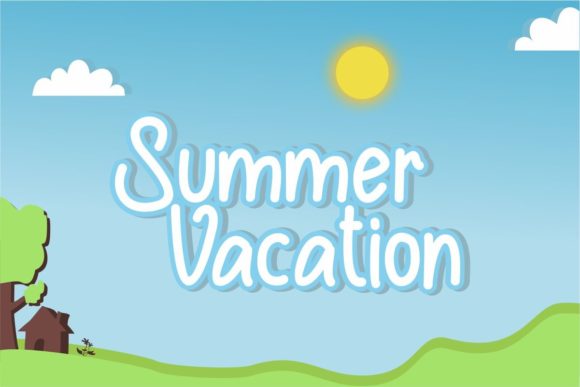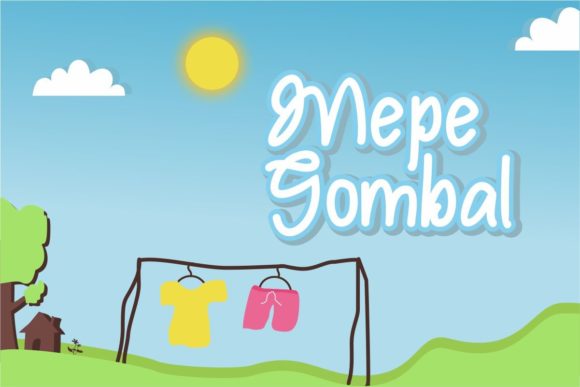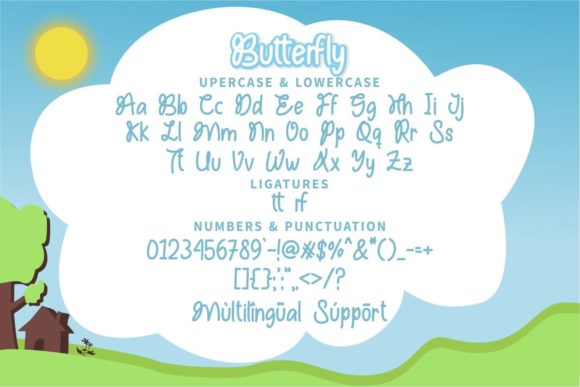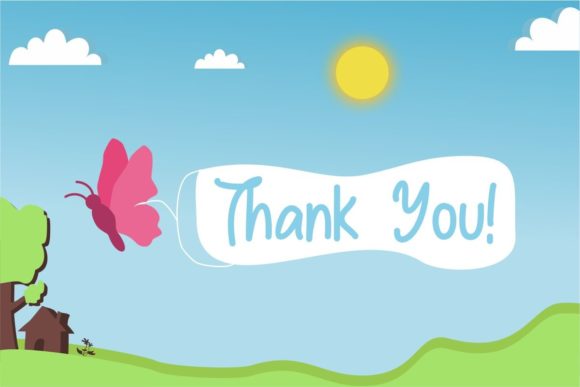
The Sweet Charm of Butterfly Font
There’s nothing quite like the thrill of discovering a new font that makes your designs leap to life. Remember that moment when you stumbled upon the perfect script font, and suddenly your project transformed from bland to grand? That’s exactly what happened to me when I first laid eyes on the Butterfly Font.
This charming script font is more than just a pretty face – it’s a way to infuse your designs with a sense of whimsy and personality. The Butterfly Font is designed to be cute, natural, and quirky, making it the perfect choice for adding a touch of sweetness to your projects. Whether you’re working on a children’s book, a wedding invitation, or a social media campaign, this font is sure to bring a smile to your audience’s faces.
As a designer, you know how valuable it is to have a versatile font in your toolkit. The Butterfly Font is a wonderful addition to any designer’s arsenal, offering a unique and playful style that’s sure to elevate your designs to the next level.
Butterfly Font Key Features
- Font Family: Butterfly Font is a unique, handwritten font with a distinctive aesthetic.
- Unique Characteristics: Features a beautiful, flowing script style with subtle flourishes and variations in letterform design.
Butterfly Font Review
When I first laid eyes on the Butterfly Font, I was struck by its whimsical charm. ✨ The delicate, hand-drawn strokes and organic shapes evoke a sense of lightness and playfulness that’s perfect for designs that need a touch of magic. The font’s versatility shines through in its various weights and styles, making it an excellent choice for anything from children’s books to wedding invitations.
One of the things I appreciate about Butterfly Font is its readability. ✨ Despite its intricate design, the font remains clear and legible, even at smaller sizes. This is especially important for digital designs, where text can often get lost in the noise.
- ⚠️ Limited language support: While the font is available in multiple languages, it may not support all characters or scripts.
- ⚠️ May not be suitable for formal or corporate designs: The font’s playful nature may not be suitable for more serious or professional projects.
- ⚠️ Requires careful kerning: Due to its hand-drawn nature, the font may require some manual kerning to ensure proper spacing between characters.
Overall, I think the Butterfly Font is a beautiful and versatile addition to any designer’s toolkit. While it may have some limitations, its charm and readability make it an excellent choice for the right projects.
Tips for Getting the Most Out of the Butterfly Font
For optimal results, use the Butterfly Font in conjunction with pastel colors and soft textures to create a whimsical and dreamy aesthetic.
The Butterfly Font is ideal for:
- Children’s party materials and decorations
- Illustrated quotes and posters
Alternatives to Butterfly Font for Designers
Great Vibes is a modern, elegant script font perfect for adding a touch of sophistication to your designs. It’s ideal for use in invitations, wedding stationery, and other high-end branding materials. Great Vibes has a more refined and polished look compared to Butterfly Font, which can be bolder and more playful.
Carolyna Pro is a stylish and versatile script font suitable for a wide range of design projects, from logos and branding to packaging and advertising. Its flowing lines and elegant curves make it an excellent alternative to Butterfly Font for designers looking for a more refined and sophisticated look. Carolyna Pro is also highly customizable, allowing designers to adjust the font’s style to fit their specific needs.
Ostrich Sans is a modern sans-serif font with a friendly and approachable feel. It’s perfect for use in digital design, such as websites, apps, and social media platforms. While Ostrich Sans is more straightforward and simple compared to Butterfly Font, it still offers a unique and stylish look that can help designers stand out from the crowd.